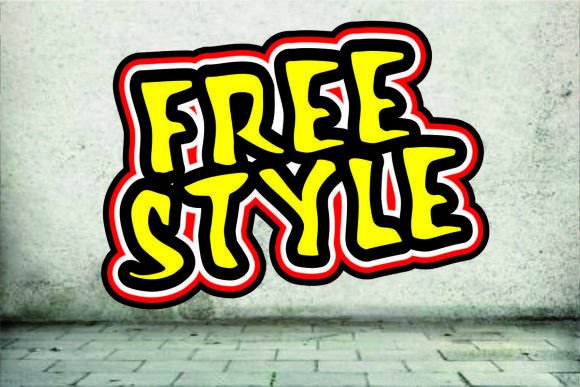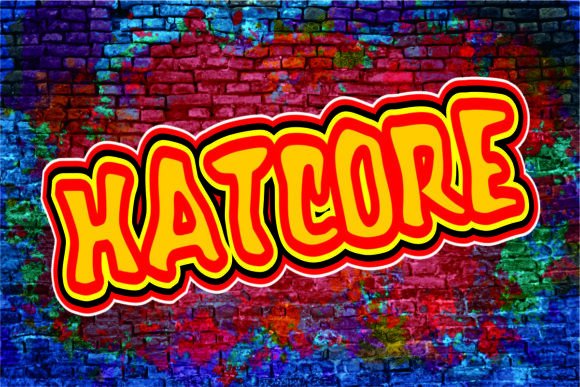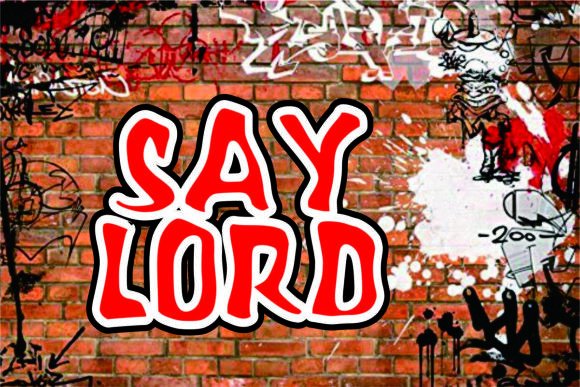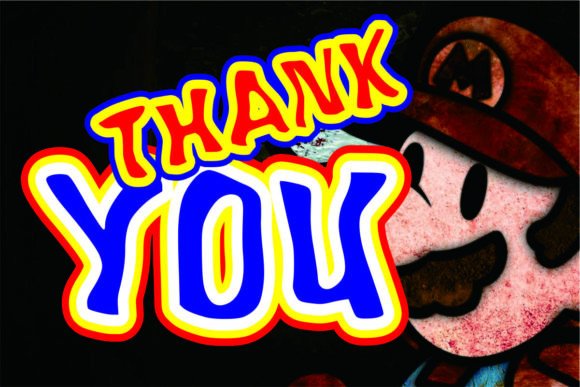
Introducing Graffity Font: The Modern Retro Style for Your Design Needs
Are you a designer or crafter looking for a unique font style to add a touch of retro charm to your designs? Look no further than Graffity Font! This modern, clean, and subtle retro font style is perfect for creating eye-catching logo shirt designs, posters, and more. In this article, we’ll dive into the features and benefits of Graffity Font and explore how you can use it to elevate your design game.
What is Graffity Font?
Graffity Font is a modern take on traditional retro font styles. It boasts a unique shape with smooth, rounded corners that give it a clean and subtle look. This font style is perfect for designers who want to add a touch of nostalgia to their designs without going overboard. Whether you’re creating a logo, shirt design, or poster, Graffity Font is sure to make your design stand out.
Key Features of Graffity Font
- Unique Shape: Graffity Font features a unique shape with smooth, rounded corners that set it apart from other font styles.
- Modern and Clean: This font style has a modern and clean look that’s perfect for designers who want to create sleek and sophisticated designs.
- Retro Touch: Graffity Font has a subtle retro touch that adds a touch of nostalgia to any design.
- Versatile: This font style is versatile and can be used for a variety of design projects, from logo shirt designs to posters and more.
Benefits of Using Graffity Font
So, why should you choose Graffity Font for your design needs? Here are just a few benefits of using this amazing font style:
- Adds a Touch of Retro Charm: Graffity Font adds a touch of retro charm to any design, making it perfect for designers who want to create nostalgic designs.
- Stand Out from the Crowd: With its unique shape and smooth, rounded corners, Graffity Font is sure to make your design stand out from the crowd.
- Easy to Read: This font style is easy to read, making it perfect for designs that require a clear and concise message.
- Customizable: Graffity Font is highly customizable, allowing you to adjust the font size, color, and more to fit your design needs.
How to Use Graffity Font in Your Designs
Using Graffity Font in your designs is easy! Here are a few tips to get you started:
- Pair it with Bold Colors: Pair Graffity Font with bold colors to create a striking design that’s sure to grab attention.
- Use it for Headings: Use Graffity Font for headings and titles to add a touch of retro charm to your design.
- Experiment with Different Sizes: Experiment with different font sizes to create visual interest and hierarchy in your design.
- Add Texture and Patterns: Add texture and patterns to your design to give it a unique and eye-catching look.
In conclusion, Graffity Font is a modern, clean, and subtle retro font style that’s perfect for designers and crafters who want to add a touch of nostalgia to their designs. With its unique shape, smooth rounded corners, and versatile design, Graffity Font is sure to make your design stand out from the crowd. Whether you’re creating a logo shirt design, poster, or more, Graffity Font is a great choice for any design project.